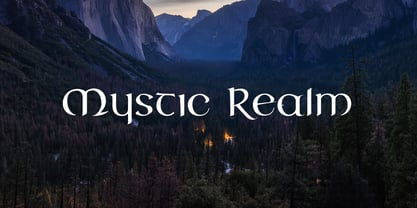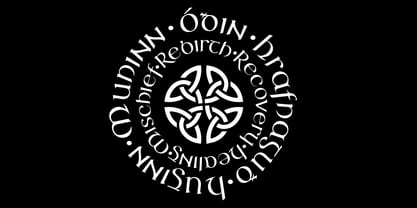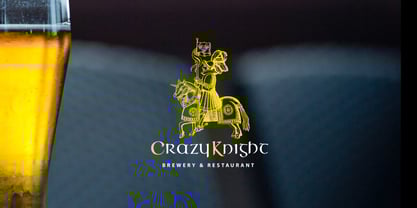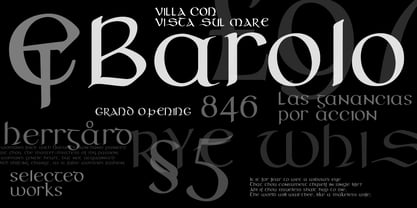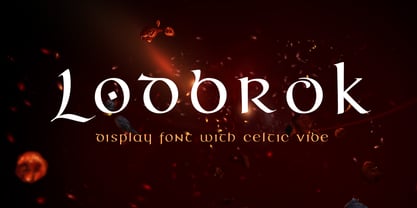
Lodbrok
by vatesdesign
The Lodbrok Font Family was designed by Aleksey Ivanov and published by vatesdesign. Lodbrok contains 1 styles. More about this family
This calligraphic font draws inspiration from uncial and gothic cursive scripts, offering a unique blend of readability and a distinctly Celtic, medieval, and Viking aesthetic. Ideal for branding and product design related to beer, whiskey, and cultural themes from Scotland, Ireland, Norway, and Sweden, this font also suits the magic and gaming niches. It supports basic Latin and Scandinavian character sets, ensuring versatility in various applications. Additionally, it includes alternative designs for certain letters, enhancing creative possibilities. Perfect for editorial use, packaging, and promotional materials, this font family stands out with its rich historical influences and modern usability.
Designers: Aleksey Ivanov
Foundry: vatesdesign